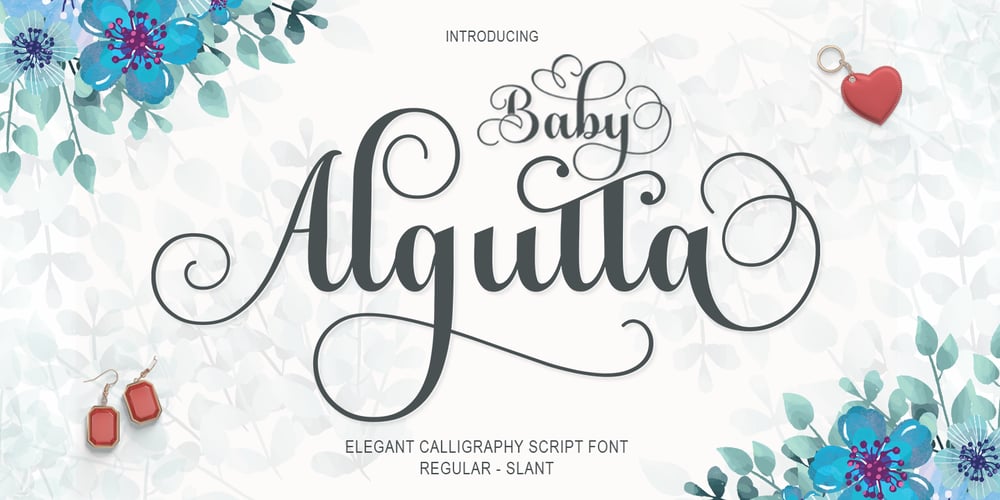
Baby Algutta Font Family was designed by Ikhsan Maulana and published by IM Studio. Baby Algutta contains 3 styles and family package options. Baby Algutta is a modern, handwritten and modern calligraphy font. The shape is modern and unique and the writing style is very natural.The Baby Algutta features a varied baseline, smooth lines, beautiful glyphs, and amazing alternatives.Hand-drawn design elements allow you to create many beautiful typographic designs in an instant such as branding, web and editorial design, prints, crafts, quotes,It’s great for logos, wedding invitations, romantic cards, labels, packaging, name spelling, and more.Thank you.